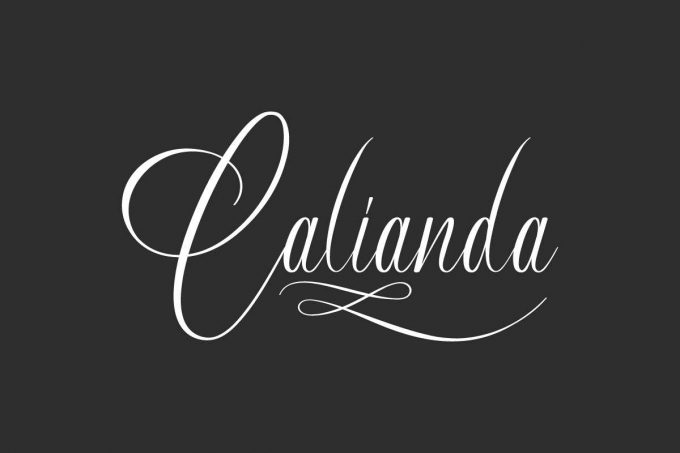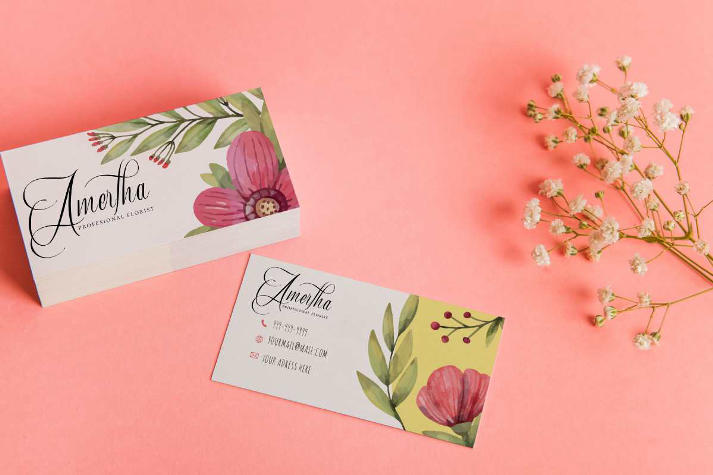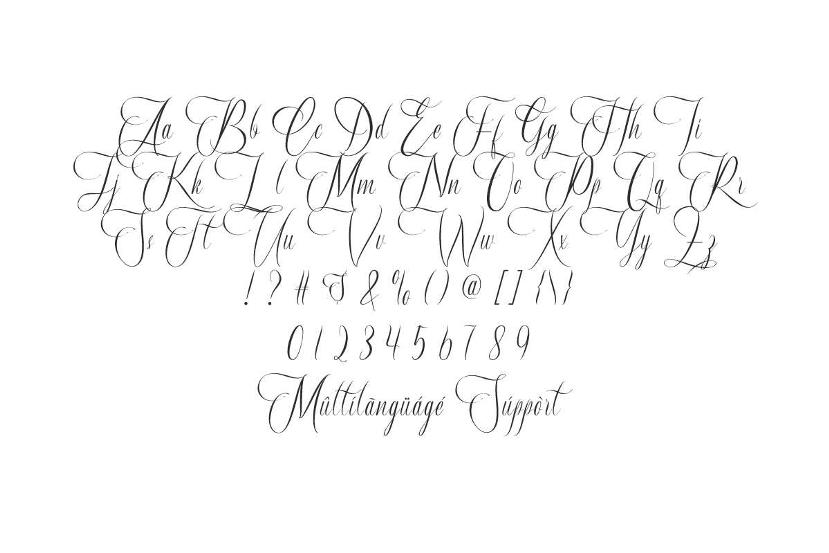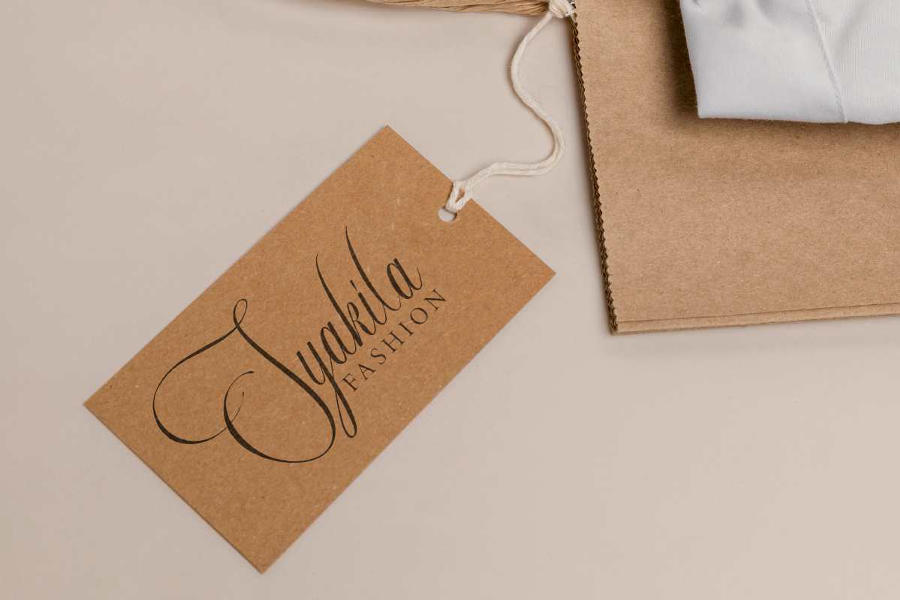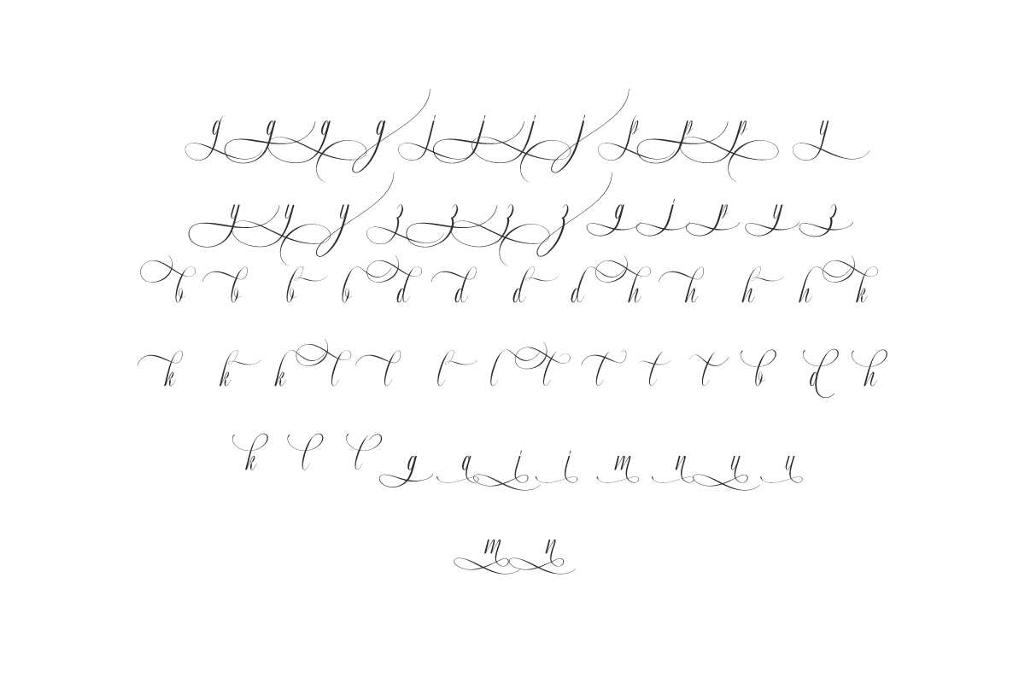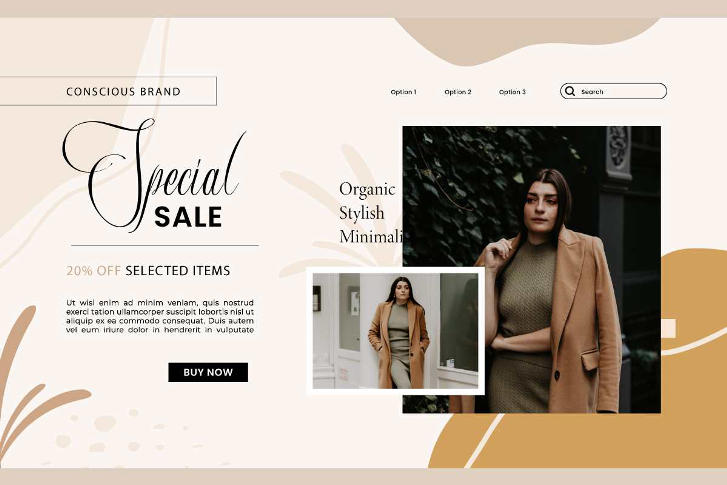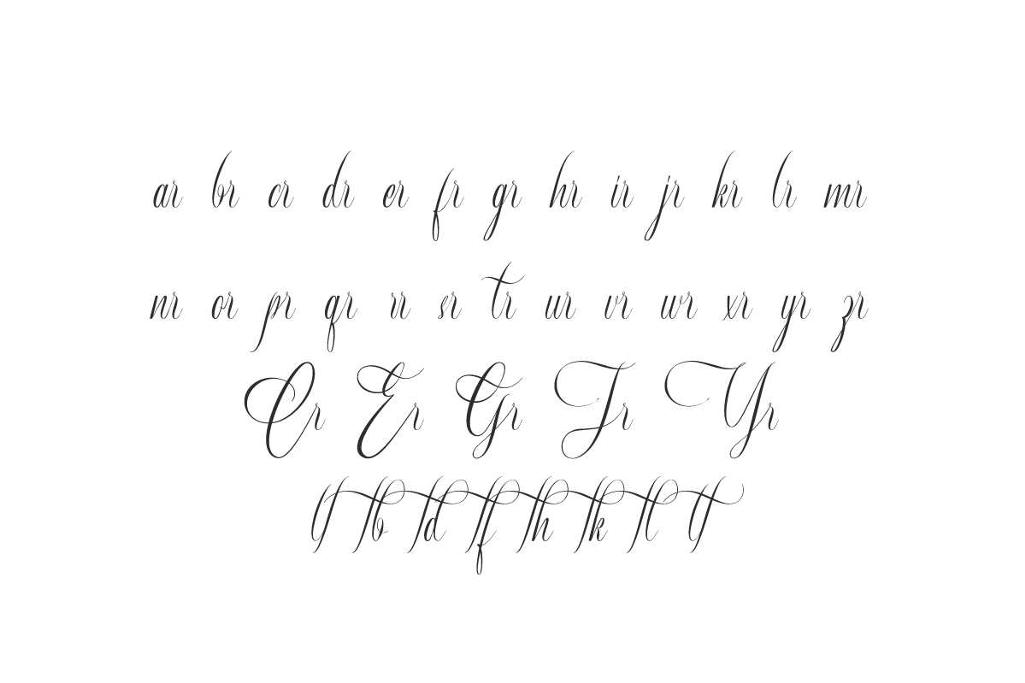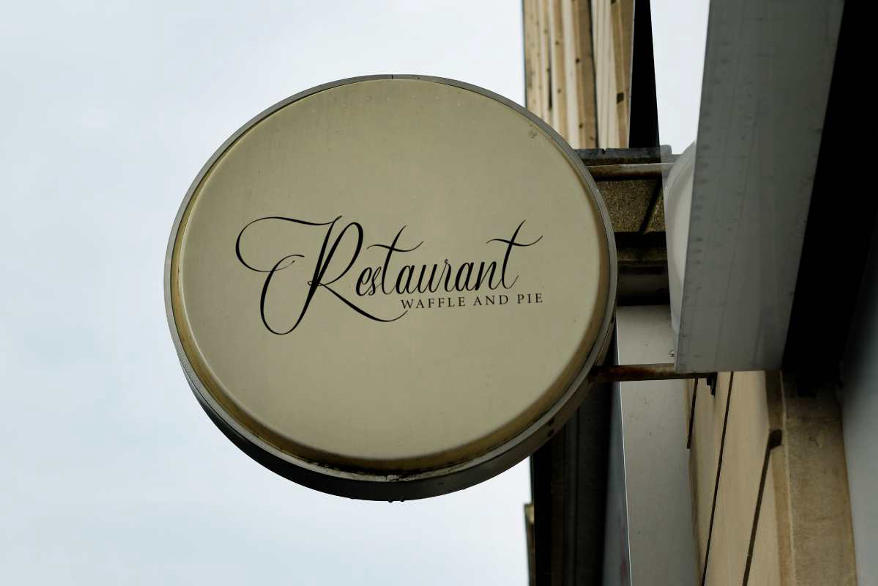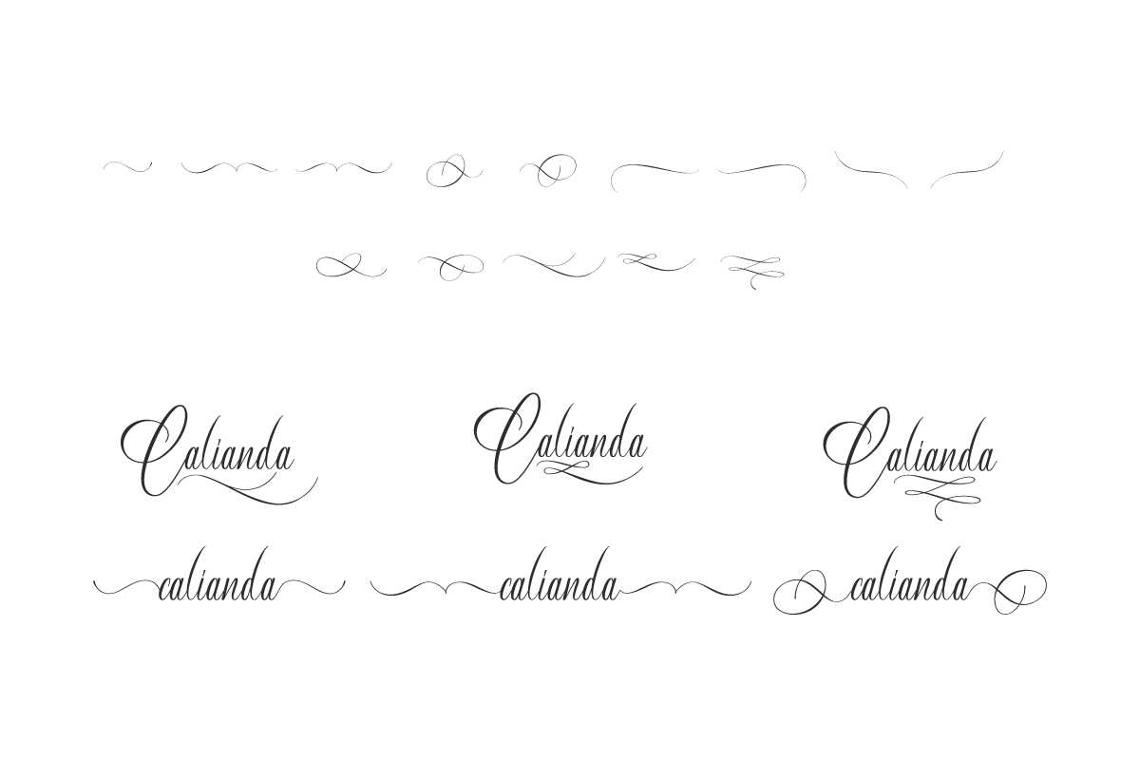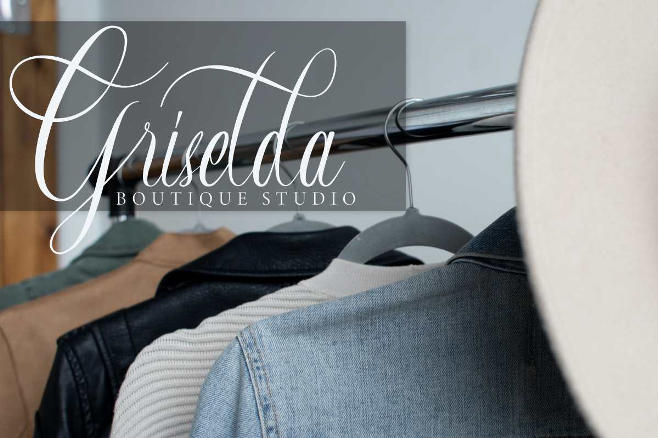
Calianda Font is an awesome calligraphic font which has luxurious and modern style. This font is crafted carefully in every its single letter so we can make sure it has great looking, inspired by lovely wedding letterings. Carefully designed to work together in harmony and This one should make your designs instantly professional and jaw-dropping!
Calianda Calligraphy Fontincludes full set of Uppercase and Lowercase Basic Characters, Numerals and Punctuation. Also it contains ligatures to make it flowless characters to perfectly make awesome look that add more aesthetic fonts to perfect your extraordinary project. Calianda Font will be great for wedding, engagement, holiday, writer, musician, singer, artist, composer, architect, etc
This font is perfect for many projects including : headings, logos, branding design, quotes, products, cards, stationery, invitations and more! Be a perfect professional in a minute and start creating today!